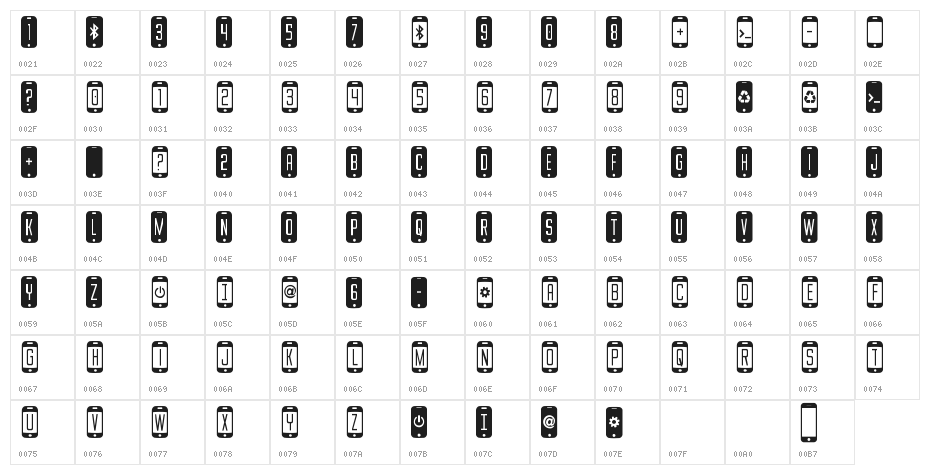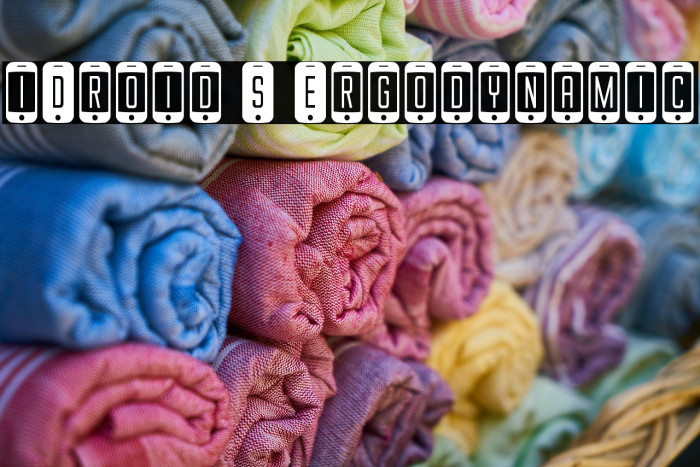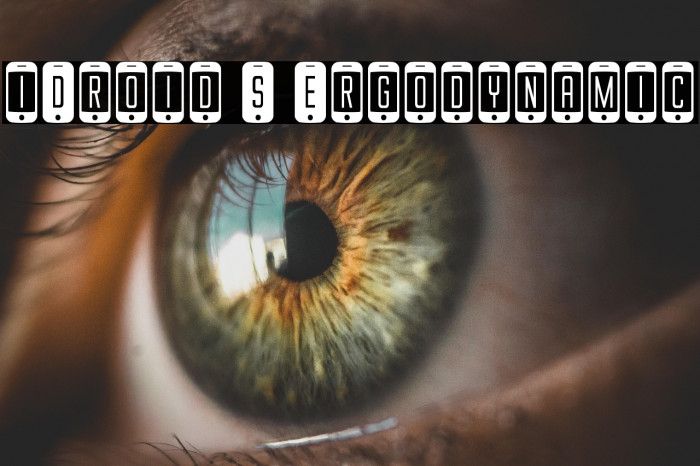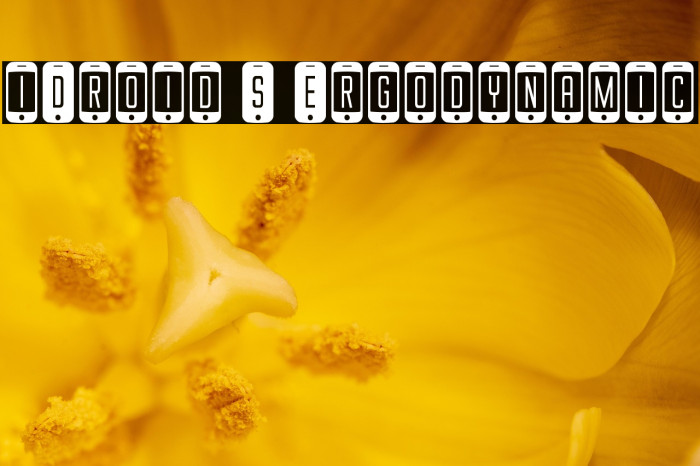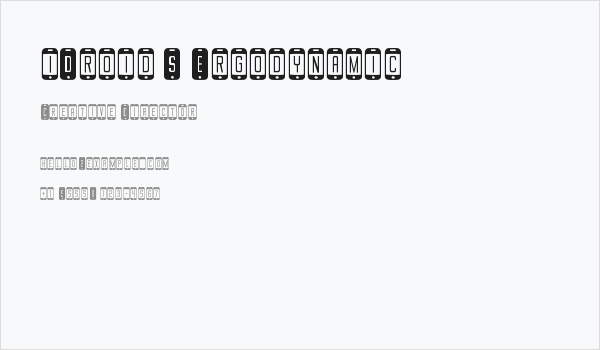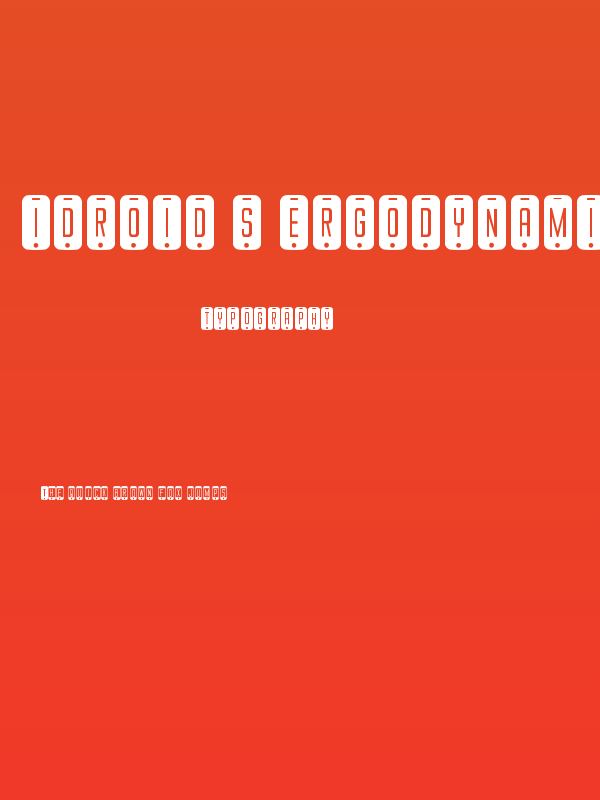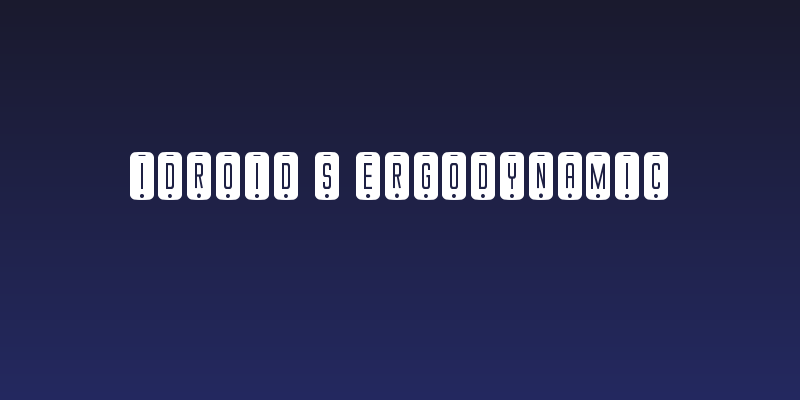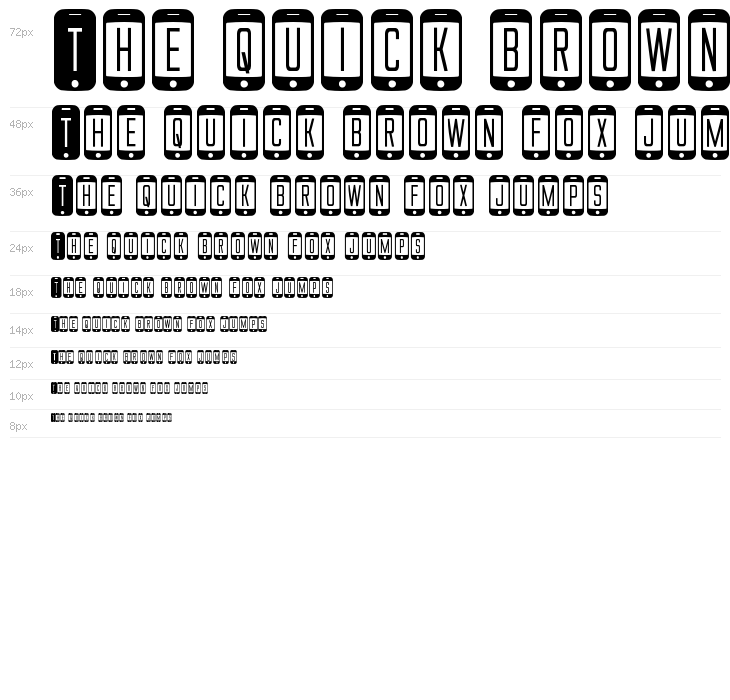
iDroid S Ergodynamic Font
iDroid S Ergodynamic Description
This font features a unique design where each character is enclosed within a smartphone-like shape, complete with a circular button at the bottom. The letters and numbers are bold and geometric, with a modern, tech-inspired aesthetic. The characters are evenly spaced within their containers, providing a uniform appearance. The font includes uppercase letters, numbers, and a selection of special characters, all maintaining the same enclosed style. This design gives a futuristic and digital feel, making it ideal for projects that require a tech-savvy or innovative look.
| Use Case | Logos, Headlines, Digital Interfaces |
| Proposed Projects | Ideal for tech-related branding, app design, digital marketing materials, and futuristic-themed projects. |